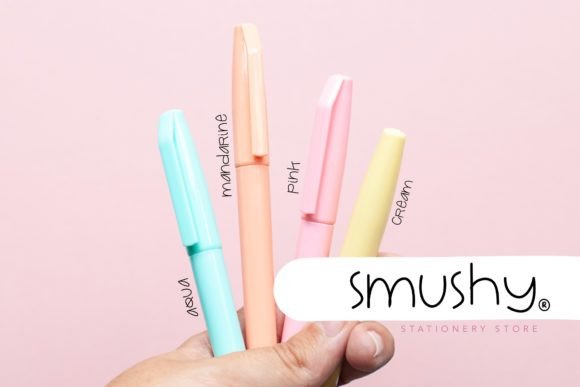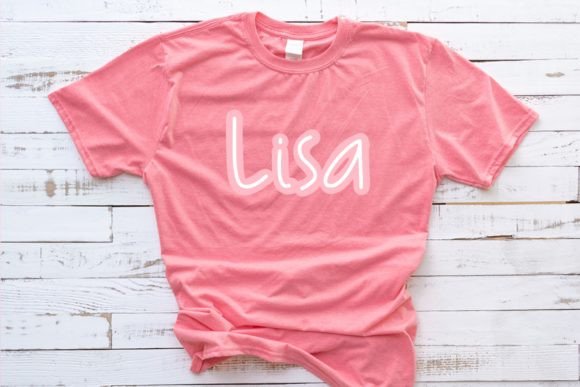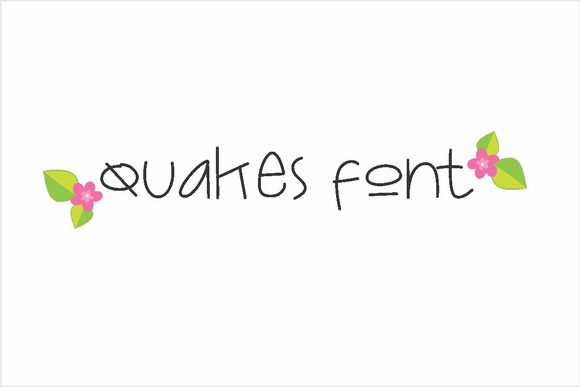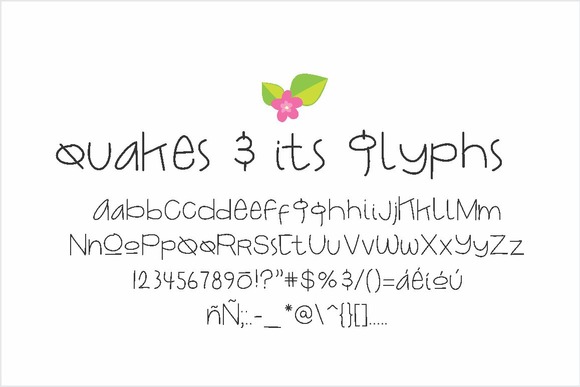
Quakes Font
About Quakes Font
Quakes is a fun and curious font. It can be used for various purposes such as: headings, logos, badges, posters, invitations and much more!